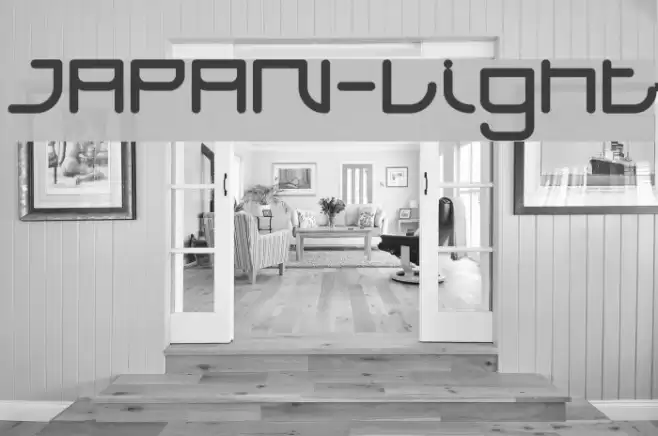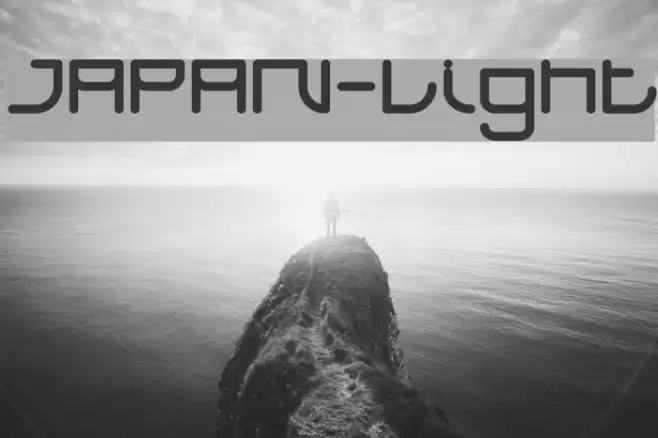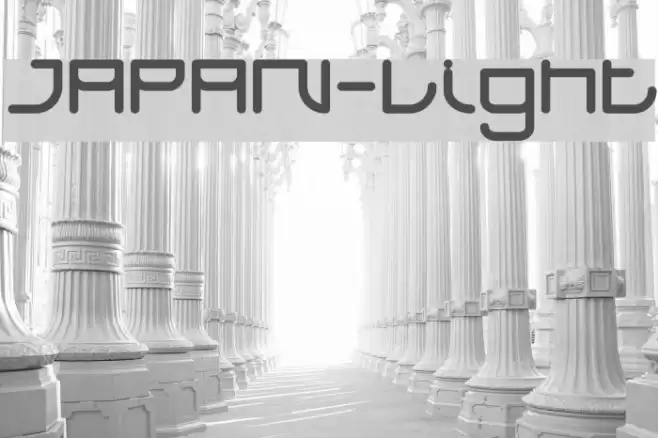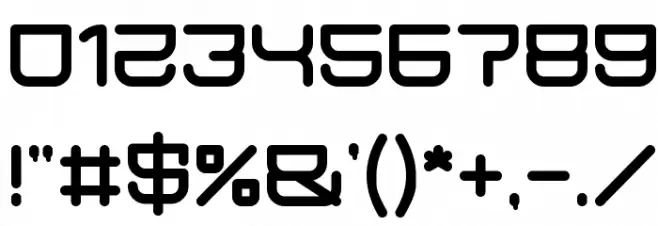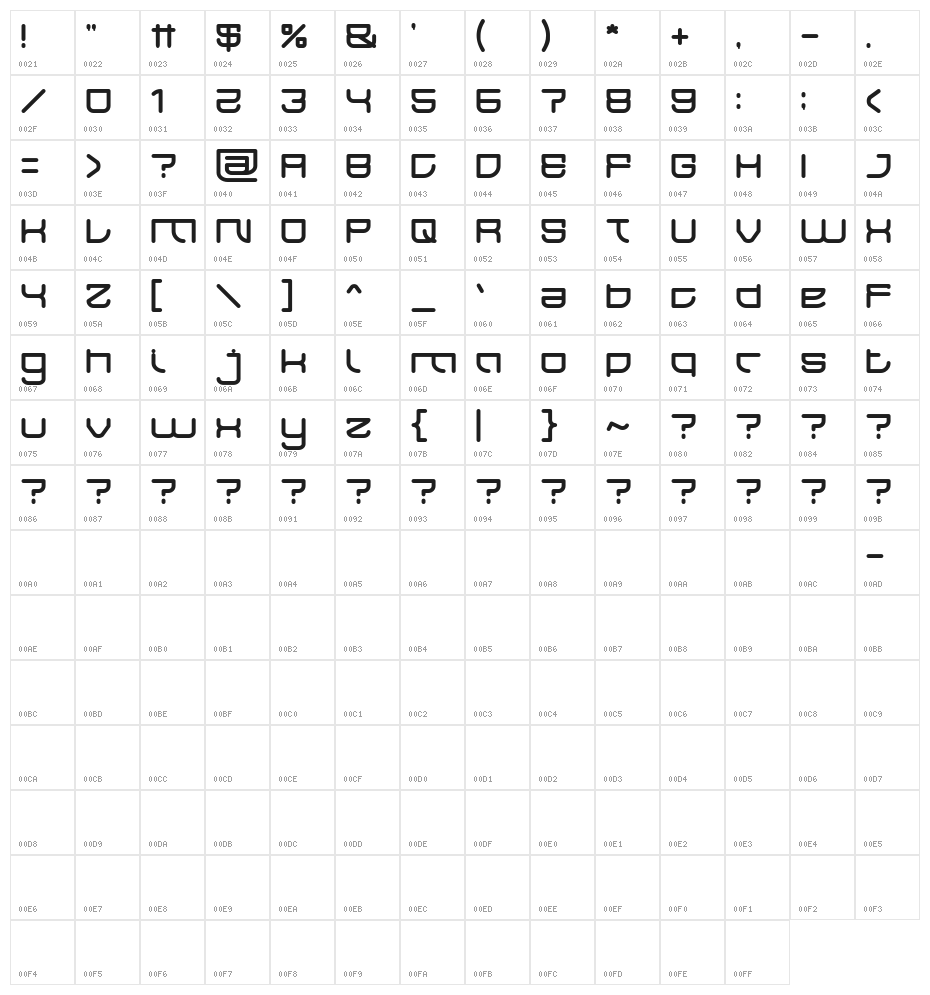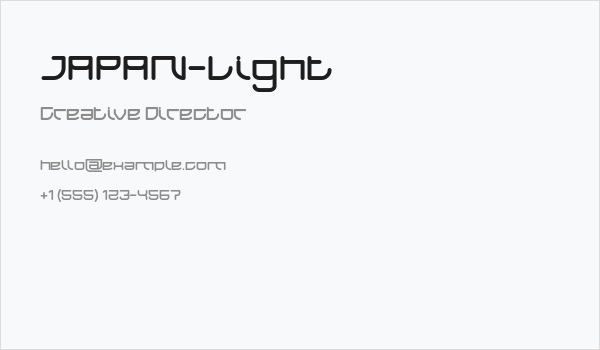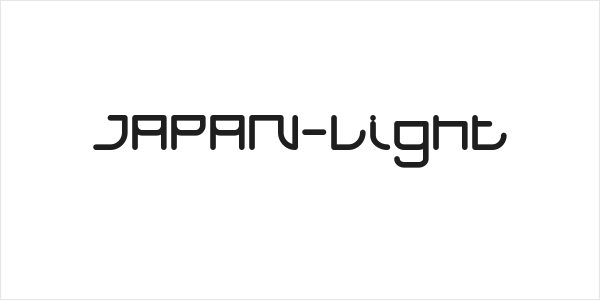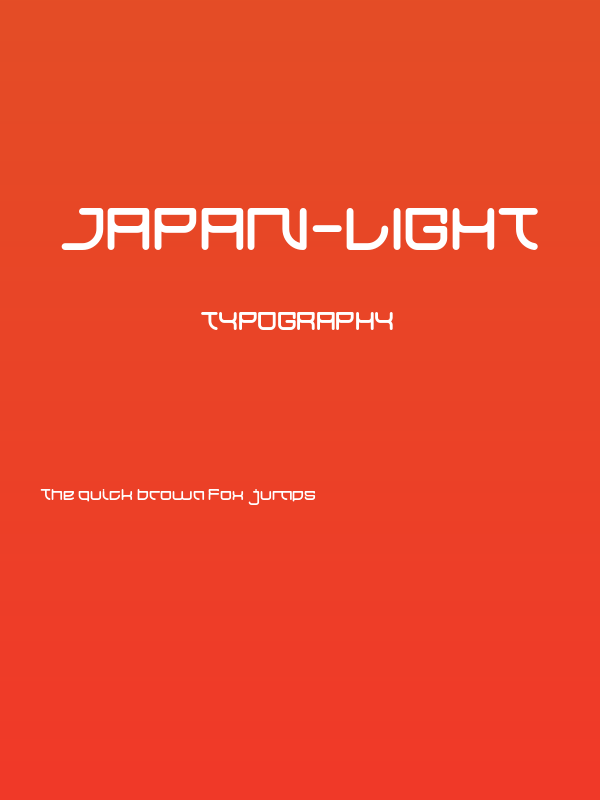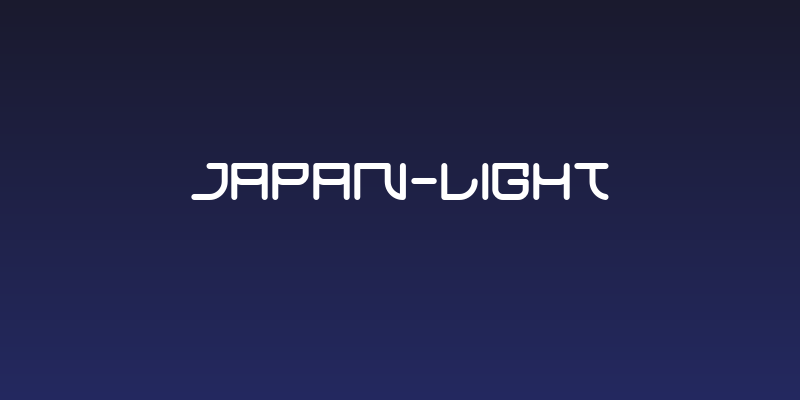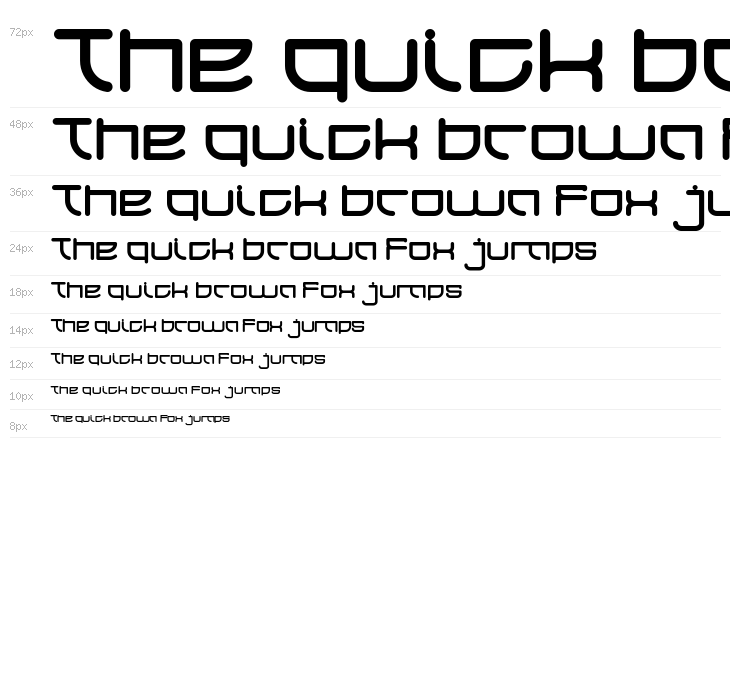
JAPAN-Light Font
JAPAN-Light Description
This font features a modern, geometric design with rounded edges and a futuristic aesthetic. The characters are constructed with uniform stroke widths, giving it a clean and consistent appearance. The uppercase and lowercase letters maintain a similar style, with subtle variations in height and width that add visual interest. The numerals and special characters are designed to complement the alphabet, maintaining the same geometric and rounded style. This font is ideal for projects that require a contemporary and sleek look, such as technology branding, digital interfaces, or modern advertising.
A modern, geometric font with rounded edges and a futuristic style from Uncategorized fonts.
- Proposed Projects: Ideal for technology branding, digital interfaces, modern advertising, and futuristic design projects.
- Overall Style: Futuristic, Geometric
- Use Case: Logos, Headlines, Digital Interfaces